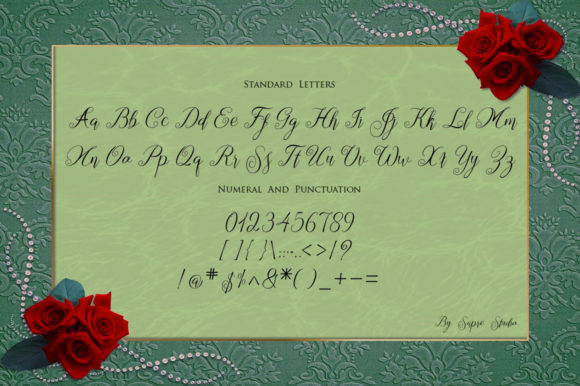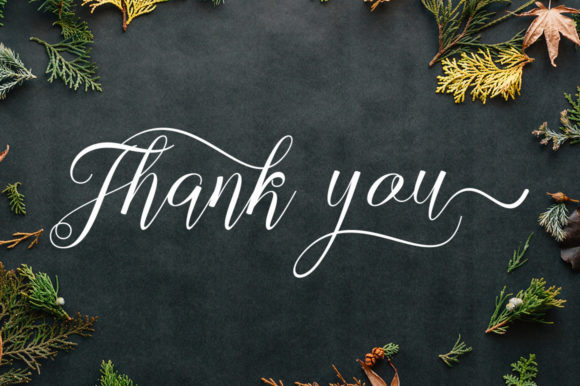
Freebie Wednesday: Singles Font
Singles Font is a modern calligraphy font and it’s free at Creative Fabrica for another 5 days so you better make sure you don’t miss out!